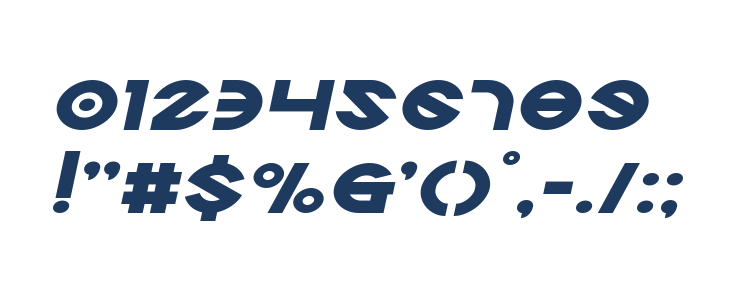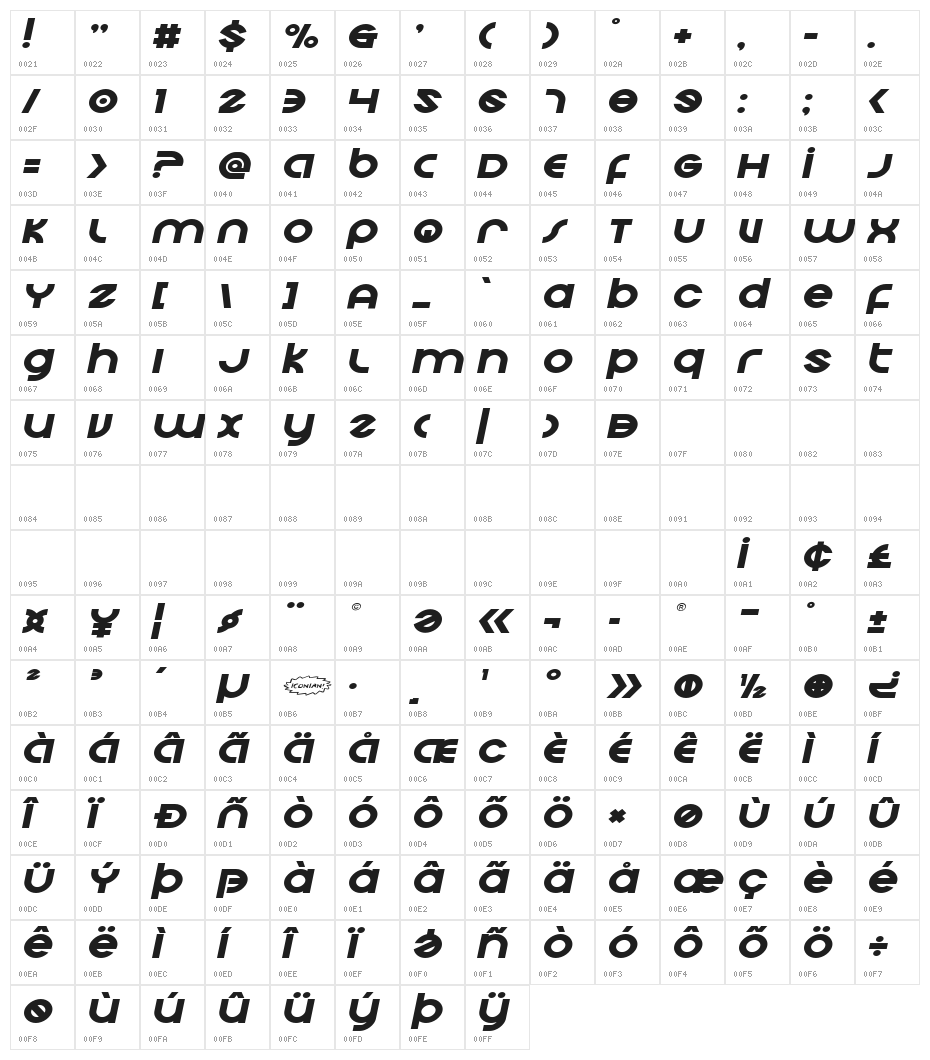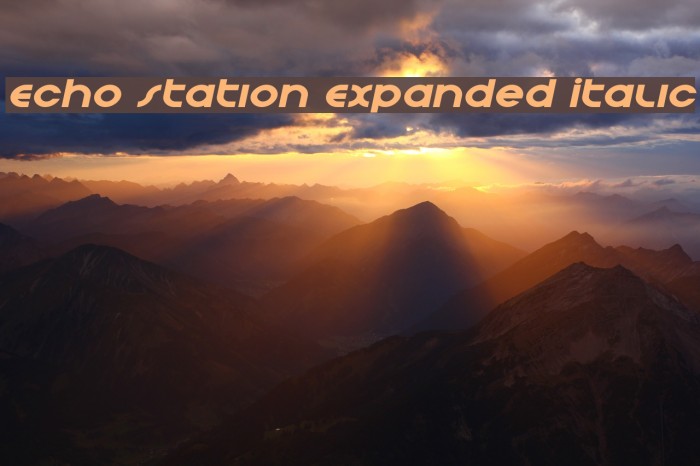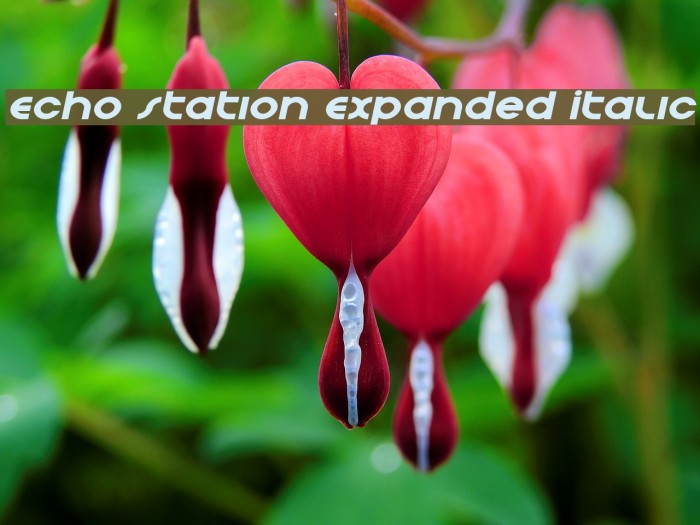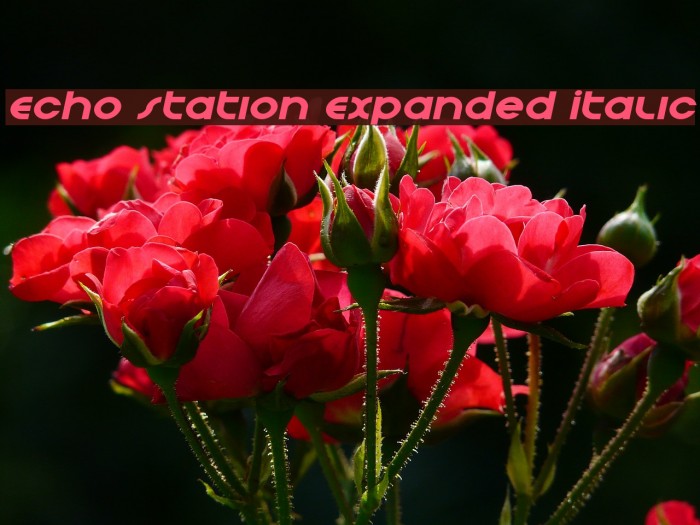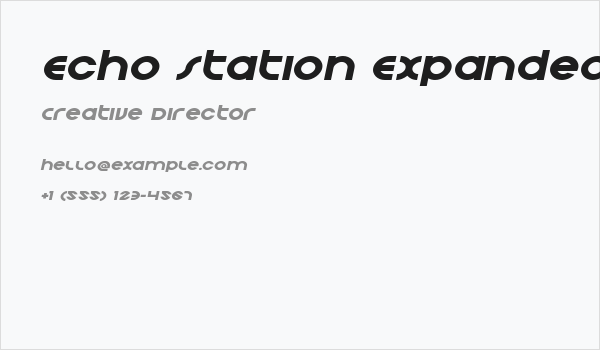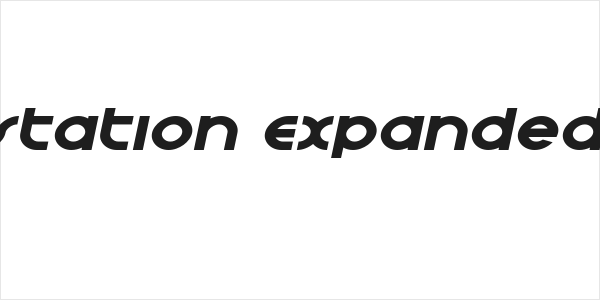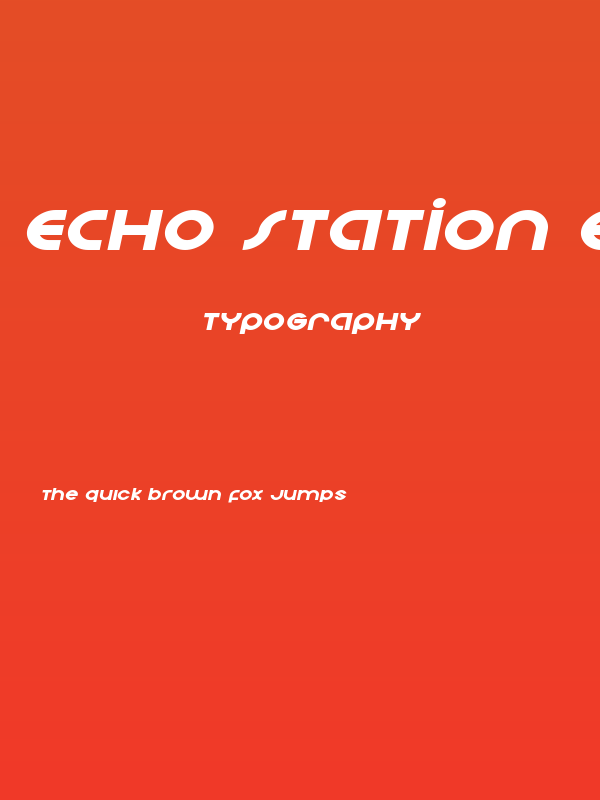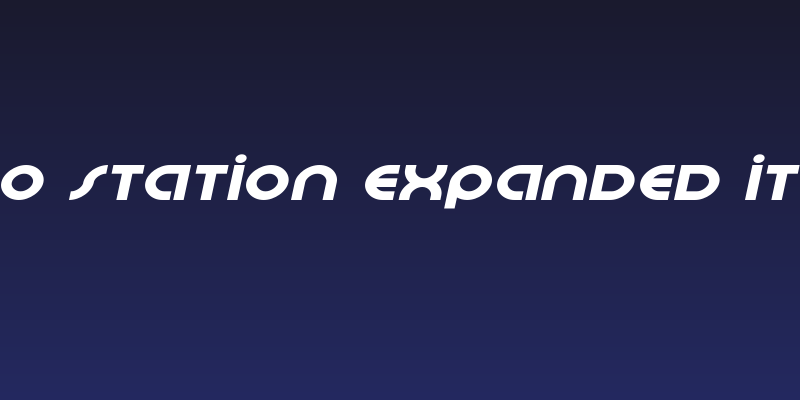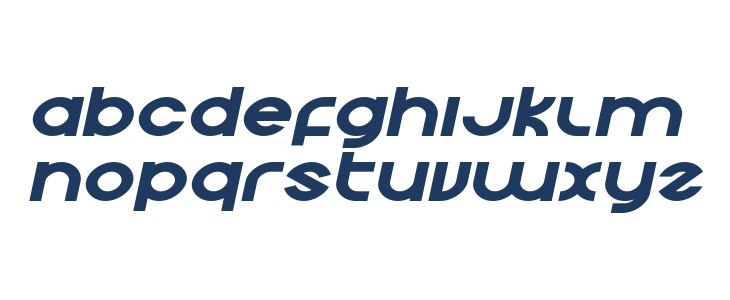
Echo Station Expanded Italic Font
Echo Station Expanded Italic Description
This font features a futuristic and dynamic design, characterized by its expanded and italicized style. The letters are bold and have a unique geometric structure, with smooth curves and sharp angles that create a sense of movement and energy. The uppercase and lowercase letters maintain a consistent style, while the numerals and special characters complement the overall aesthetic. The font's expanded width gives it a distinctive presence, making it suitable for attention-grabbing headlines and modern design projects.
| Proposed Projects | Ideal for sci-fi themed designs, technology branding, video game titles, and modern advertising. |